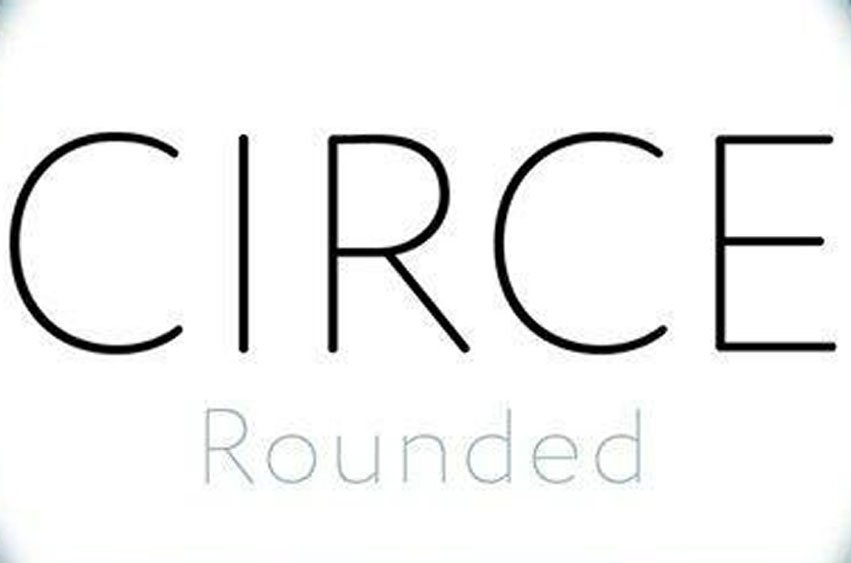
Circe Rounded Font
Circe Rounded Font is an extension for a popular Circe typeface, with rounded terminals. Bold and ExtraBold faces have two variants with different radius of the roundings.
Circe Rounded is even more friendly than the original Circe. The typeface is designed by Alexandra Korolkova and Alexander Lubovenko and released by ParaType in 2015.